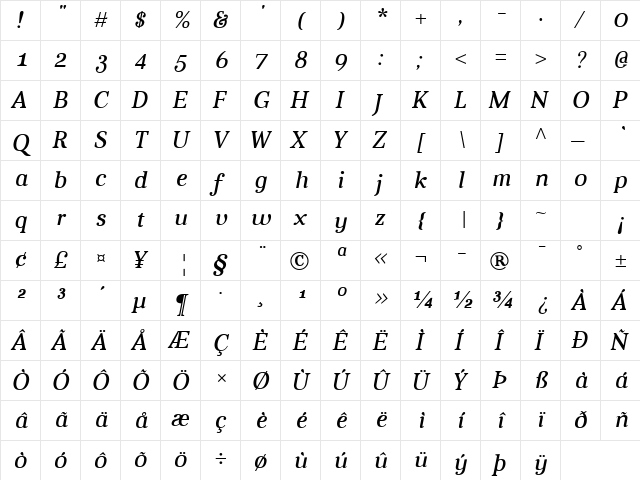
Aver Italic
Design Context for Aver Typeface
Aver is a composed and adaptable typeface that performs quietly and consistently across a wide range of design contexts. Its italic angle brings a sense of urgency and motion to the letterforms.
Pro Tip: Try Aver for annotation and caption copy alongside an upright companion — the contrast in angle creates a dynamic but ordered typographic system.